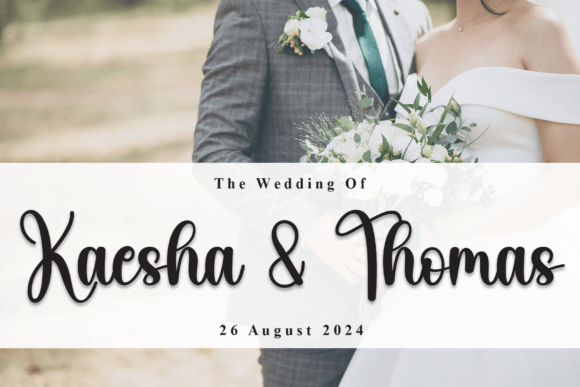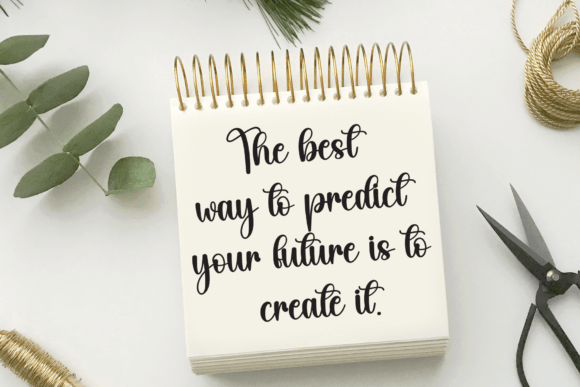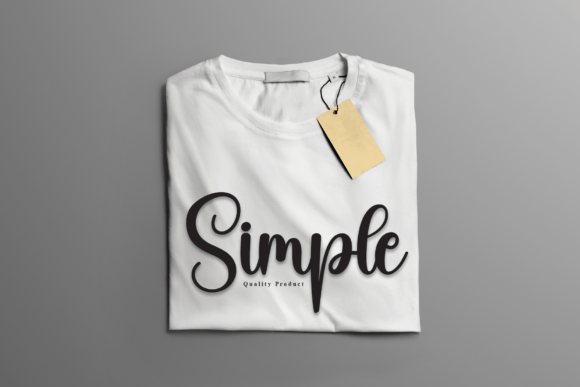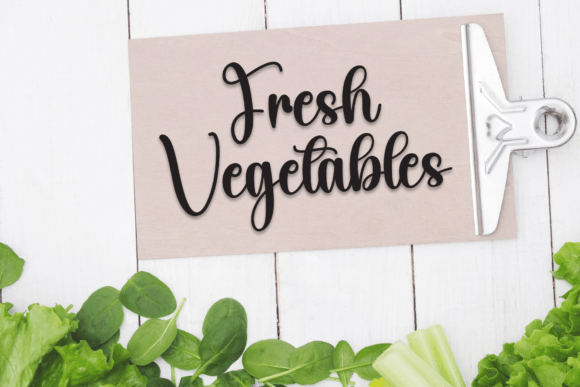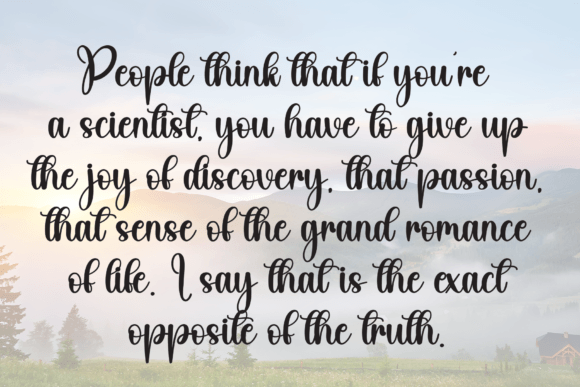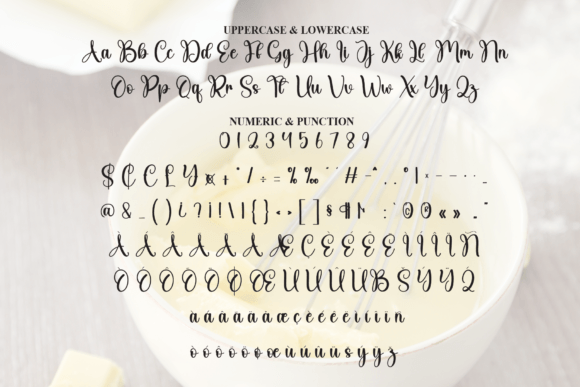
Introducing Butter Font: The Sweetest Addition to Your Design Collection
Are you tired of using the same old fonts in your designs? Look no further! We’re thrilled to introduce Butter Font, a charming, hand-scripted display font that’s sure to add a dash of joy to any project. With its friendly vibe and heartwarming charisma, this delightful font is perfect for crafting memorable wedding invitations, heart-touching cards, or adding a fun-filled flourish to any creative project.
The Story Behind Butter Font
Butter Font is a labor of love, carefully crafted to bring a smile to your face and a touch of whimsy to your designs. Its unique, hand-scripted style is reminiscent of a warm hug or a sweet treat on a special occasion. The font’s creator aimed to design a typeface that would evoke feelings of happiness and friendliness, making it perfect for projects that require a personal touch.
What Makes Butter Font Special?
- Hand-scripted charm: Each letter has been carefully hand-written to give the font a personal, human touch.
- Friendly vibe: The font exudes warmth and approachability, making it perfect for projects that require a friendly tone.
- Heartwarming charisma: Butter Font has a certain charm that will make your designs stand out and leave a lasting impression.
- Versatile: Use it for wedding invitations, greeting cards, or any creative project that needs a touch of personality.
Wedding invitations and cards are special occasions that deserve a font that’s just as special. Butter Font is the perfect choice for:
- Wedding invitations: Add a touch of romance and whimsy to your wedding stationery.
- Anniversary cards: Celebrate a loved one’s special day with a heartfelt, handwritten-style message.
- Birthday cards: Make a birthday extra special with a fun and playful font.
Adding a Fun-Filled Flourish to Creative Projects
Butter Font is not just limited to wedding invitations and cards. You can use it to add a fun-filled flourish to any creative project, such as:
- Social media graphics: Stand out on social media with eye-catching graphics that showcase your personality.
- Blog posts: Add a touch of whimsy to your blog posts and make them more engaging.
- Branding: Use Butter Font to create a unique and memorable brand identity.
In conclusion, Butter Font is a charming, hand-scripted display font that’s sure to add a dash of joy to any design. With its friendly vibe and heartwarming charisma, it’s perfect for crafting memorable wedding invitations, heart-touching cards, or adding a fun-filled flourish to any creative project. So why not give it a try and see how it can sweeten up your designs?